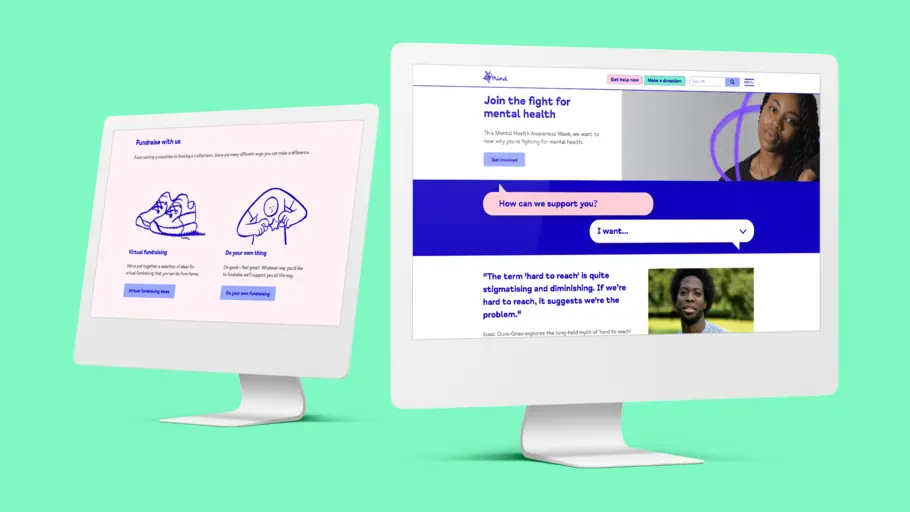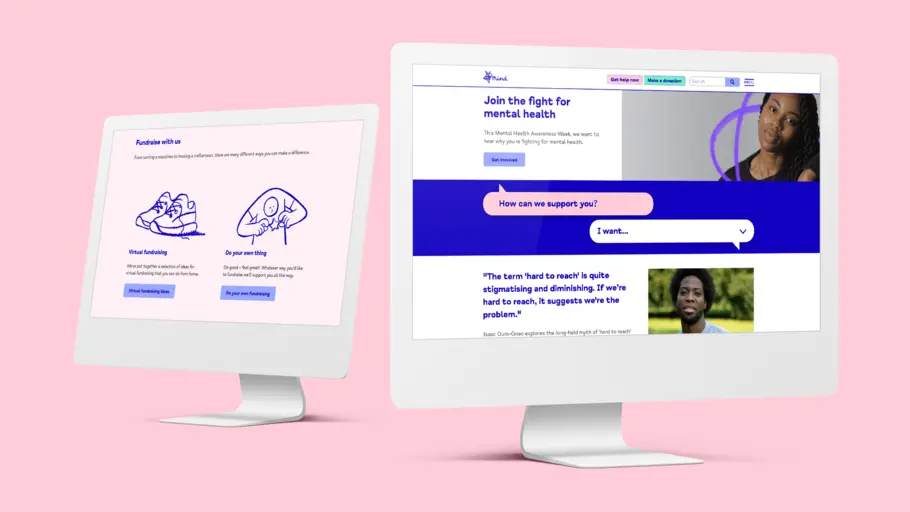
A new typeface brings digital clarity to Mind’s mental health mission.
Accessibility in type isn’t entirely down to the typeface design or the letterform shape, it’s also very much about the application, the colour, the contrast, and the actual typography.
After years of campaigning to improve awareness and understanding around mental health, the time had come for charity Mind to update its iconic visual identity. The ‘squiggle’ logo is widely recognised in England and Wales, but social media and other digital spaces were creating new demands on the organisation. In partnership with agency DesignStudio, Monotype Studio developed Mind Meridian – a modified typeface which puts warmth and accessibility at the heart of the brand.
“Mind wanted a partner to improve its brand, its story and its visual output, and communicate that to the rest of the world,” says DesignStudio Creative Director Vinay Mistry, who worked on the brand update. “With lots of research around the charity’s work, and insight into people’s lived experience – both employees and volunteers – we started to understand some of the stress points where elements weren’t working as hard as the rest.”
The organisation, which is the largest mental health charity in the UK, was previously using several different fonts – acquired over a number of years and in varying styles – which were now facing new accessibility demands. Making the brand more accessible to the diverse audience Mind serves was a huge part of the brief for the new typeface and design system, which also needed to be easy for volunteers and local Mind organisations to work with, regardless of whether they had design experience or not.
As with many other brands, much of Mind’s interaction now takes place online, making the digital realm absolutely essential for reaching the organisation’s audience. A key focus was updating Mind’s typographic palette to communicate clearly across these platforms, so the organisation could speak effortlessly through type. It also needed to build on the brand equity of Mind’s squiggle logo, which has always been a much-loved part of the brand.
“We wanted to make sure it’s the simplest thing to use, by creating one typeface that can work across everything, whether that’s online or in print. It needed to work well when at super large sizes for signage and posters, as well as super small, when being used to provide information to those who really need it.”
It was essential for the new typeface to embody the warmth and gravitas that Mind is known for. The organisation was built to reach out to and connect with people, with its mission taking on a new significance in the face of mental health challenges heightened by the pandemic. The brand refresh had to express the same level of humanity, and as Mistry says: “People need to know they can trust this organisation instantly, and that was a key part of the typeface brief.”
DesignStudio had already developed a new palette of colours that would represent the “fighting spirit” of Mind; adaptable enough to be softer in tone where needed, and more vibrant when a punchier tone of voice was required. This reflected the broad spectrum of Mind’s mission – which includes providing support as well as holding the government and policy makers to account.
The organisation’s new typeface was designed to harmonise with this refreshed branding, retaining the vitality of the Mind squiggle while answering the functional needs of the organisation – in particular the accessibility requirements. Mind Meridian is legible for those with visual impairments, and has been tailored to sit comfortably alongside the local, handwritten executions of the organisation’s logo.
“Accessibility in type isn’t entirely down to the typeface design or the letterform shape,” explains Monotype type director Phil Garnham. “It’s also very much about the application, the colour, the contrast, and the actual typography. So working together, we established a clear set of rules around that.”
“One thing we learned from Monotype was that left-aligning type, or certain kerning or leading, can really improve things to be more legible and readable,” adds Mistry. “That knowledge, on top of the actual forms and characters of the font, were a huge help.”
FS Meridian was the starting point for the design. Together with DesignStudio, the Studio team analysed its letter shapes and spacing, creating subtle changes such as narrowing proportions, opening character spacing, increasing ascenders and accentuating terminals — all to improve the “breathability” and readability of the typeface. These updates drew on extensive accessibility research already carried out by Monotype for brands including ING, RNIB and Mencap.
It was really about getting balance, and bringing some of FS Meridian’s core foundational characters into more conversational and readable proportions - something that was more in tune with a natural reading rhythm. This allowed the spacing to open up, and let the more characterful side of the font to sing a bit more.”
Mind Meridian embraces where Mind is today, and allows the brand to flex its tone for the future, so the organisation can continue to fight for mental health without losing any of its much loved and trusted brand equity from the past.